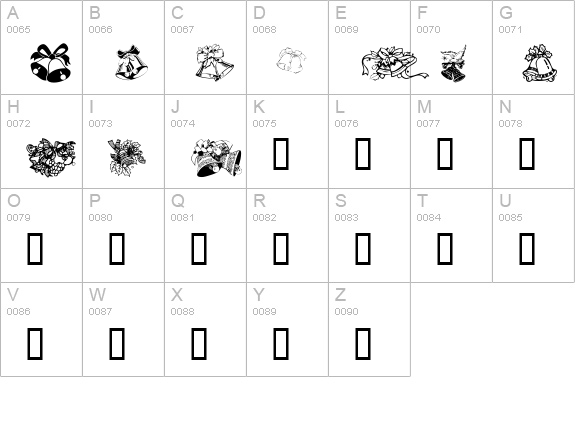
KR Christmas Bells Font Details
Introducing the enchanting KR Christmas Bells font, a festive and whimsical typeface perfect for adding a touch of holiday cheer to your designs. This delightful font features intricate bell-inspired letterforms that exude a sense of merriment and joy. With its playful and unique style, KR Christmas Bells is sure to bring a festive flair to any project, whether it be greeting cards, invitations, posters, or social media graphics. The best part? KR Christmas Bells is completely free to download at FontsMarket.com, making it easily accessible for all your holiday design needs. Embrace the holiday spirit and let the charming KR Christmas Bells font add a touch of magic to your creations this season. Download it today and spread the joy of the holidays with this delightful typeface.